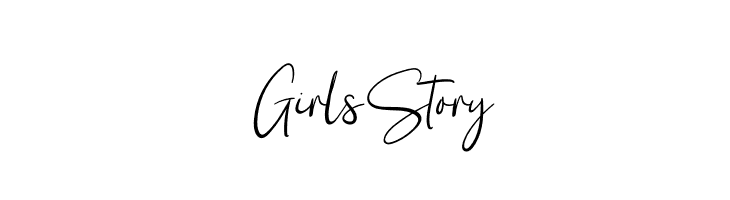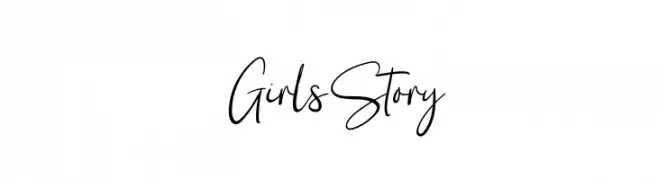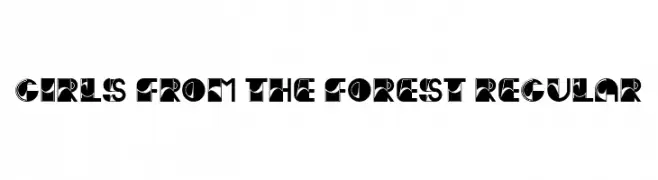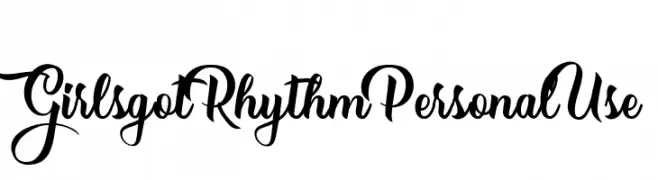
• Girls are Weird
A whimsical and playful font with elegant lines and quirky elements.
• Girls from the Forest Regular
A bold, geometric font with intricate patterns and modern decorative style.
• Girls got Rhythm Personal Use
A bold, flowing script font with elegant swashes and modern calligraphic style.
• Girls Have Many Secrets
A playful, handwritten font with rounded edges and a casual style.
• Girls Have Many Secrets
A playful handwritten font with rounded, casual letters.
• Girls Marks
A playful, rounded font with a handwritten feel, perfect for casual and creative designs.
• Girls Marks Italic
A playful, italic script font with rounded, smooth characters.
• Girls Story
A playful and elegant handwritten font with fluid, flowing letterforms.
• Girls Stuff
A playful and elegant script font with flowing cursive letters.
• Girls Summer Bold
A playful, bold font with thick, rounded characters and a lively, energetic style.